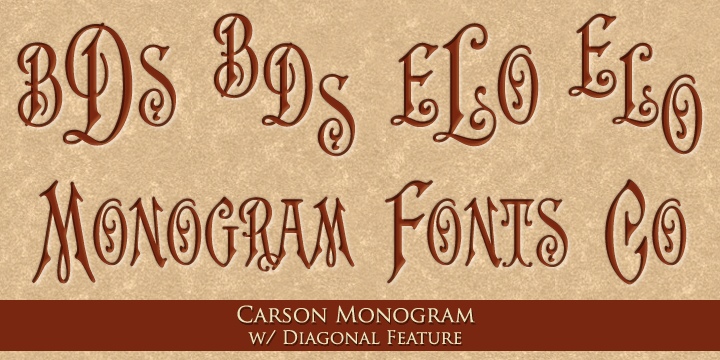
MFC Carson Monogram Font
This distinctive typeface is perfect for wedding invitations, luxury logos, vintage branding, certificate designs, personal monograms, elegant stationery, historical publications, premium packaging, and sophisticated signage systems.
What makes this font exciting is its ornate Victorian-inspired character combined with contemporary usability, offering designers authentic period elegance that transforms simple initials into stunning decorative elements with timeless appeal and aristocratic sophistication.
The MFC Carson Monogram font family includes ornamental capitals, decorative borders, flourishing elements, standard letterforms, and complementary ornaments, providing complete monogramming solutions.
Whether you're creating personalized luxury items or developing heritage brand identities, MFC Carson Monogram Font Free Download delivers exceptional decorative impact and classic refinement. This elaborate typeface captures the grandeur of 19th-century typography while remaining perfectly legible in modern applications. The font's intricate details and flourishing elements create stunning focal points that elevate any design project.
MFC Carson Monogram Font excels in applications requiring formal elegance and traditional craftsmanship aesthetics. Each character features elaborate serifs and decorative flourishes that interlock beautifully when combined into monogram compositions. The font's rich detail work makes it particularly effective for high-end applications where visual luxury and attention to detail are paramount.
Design professionals choose MFC Carson Monogram Font for projects demanding authentic vintage character and sophisticated presentation. Its ornamental qualities work exceptionally well for boutique hotels, artisanal products, and premium service providers. The font's traditional styling creates immediate associations with quality, heritage, and exclusivity.
The complete MFC Carson Monogram Font package offers extensive ornamental elements and decorative borders that complement the main letterforms. Professional typography features include contextual alternates and stylistic sets that enhance monogram creation possibilities. This comprehensive toolkit ensures designers have everything needed to create stunning personalized typography that captures Victorian elegance with contemporary precision.